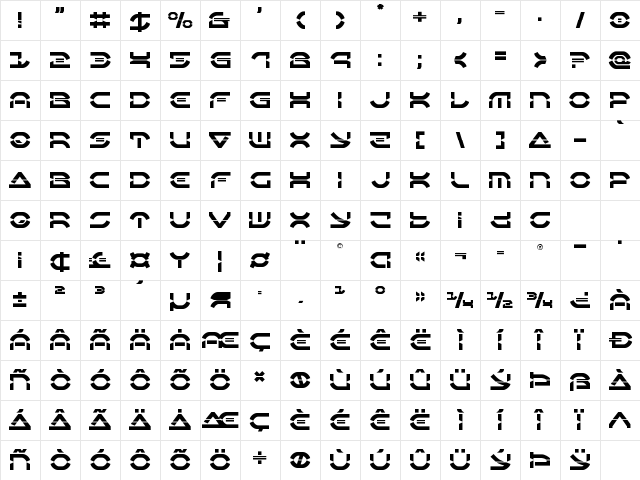
Oberon Deux Laser Regular
Design Context for Oberon Deux Laser
Oberon Deux Laser is a composed and adaptable typeface that performs quietly and consistently across a wide range of design contexts.
Pro Tip: Use Oberon Deux Laser in both headline and body roles to test its range before committing to a single application.